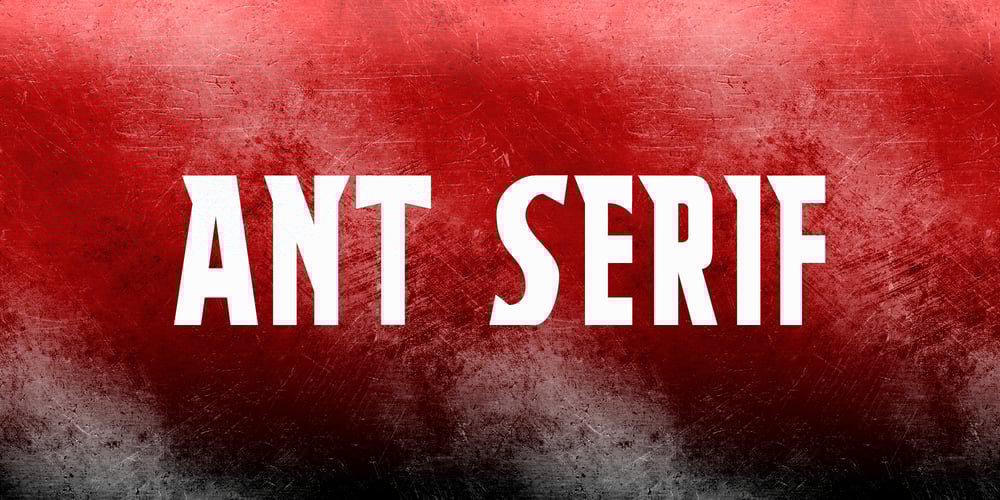
Ant Serif Font Family was designed by Stelian Cioarec and published by LNP Fonts. Ant Serif contains 2 styles and family package options. Ant Serif is a font that can be used for advertising, logo creation, webfonts and more.The font comes in two styles, Regular and Italic and has all the characters in the Latin Basic, Additional and Extended scripts.The font’s design came from my love of Marvel’s Ant-Man and the Wasp logo. The typeface used, which was custom, was of interest for me, so I decided to create it as a font. It’s not a perfect font, but I have put work to make sure it looked as decent as possible.Hope you’ll enjoy it!